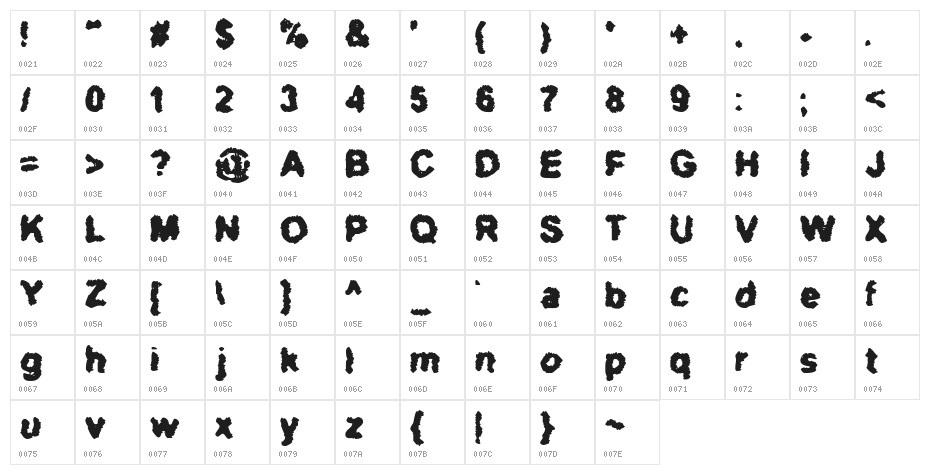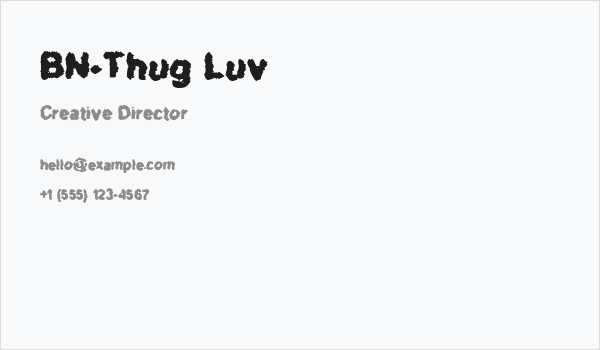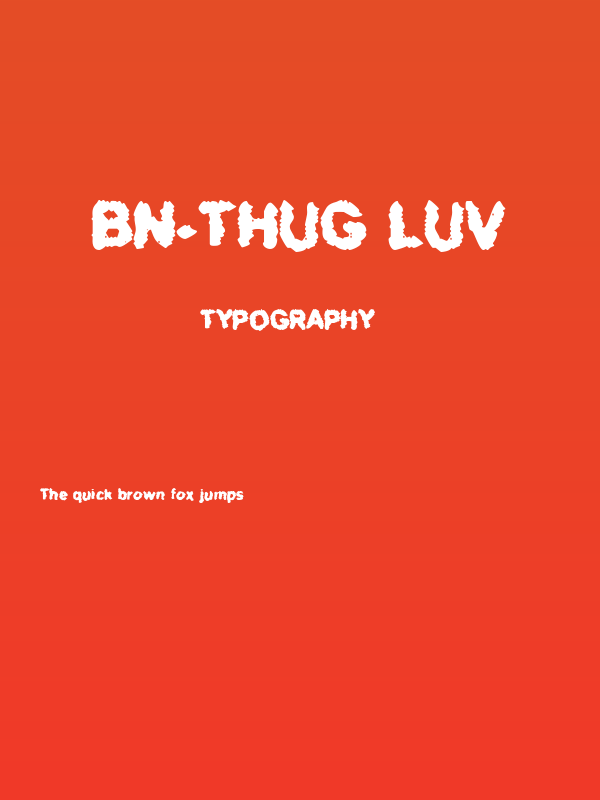
BN-Thug Luv Font
BN-Thug Luv Description
This font features a bold and rugged design, characterized by its irregular, jagged edges and thick strokes. The letters have a distressed, grungy appearance, giving them a raw and edgy feel. Each character is uniquely shaped, with a sense of movement and energy, making it stand out in any design. The font's heavy weight and distinctive style make it ideal for projects that require a strong visual impact. Its unique aesthetic is perfect for creating eye-catching headlines, posters, or album covers that need a touch of rebellious flair.
| Overall Style | Grunge, Edgy, Rebellious |
| Use Case | Headlines, Posters, Album covers |
| Proposed Projects | Ideal for music album covers, edgy posters, streetwear branding, and rebellious-themed designs. |